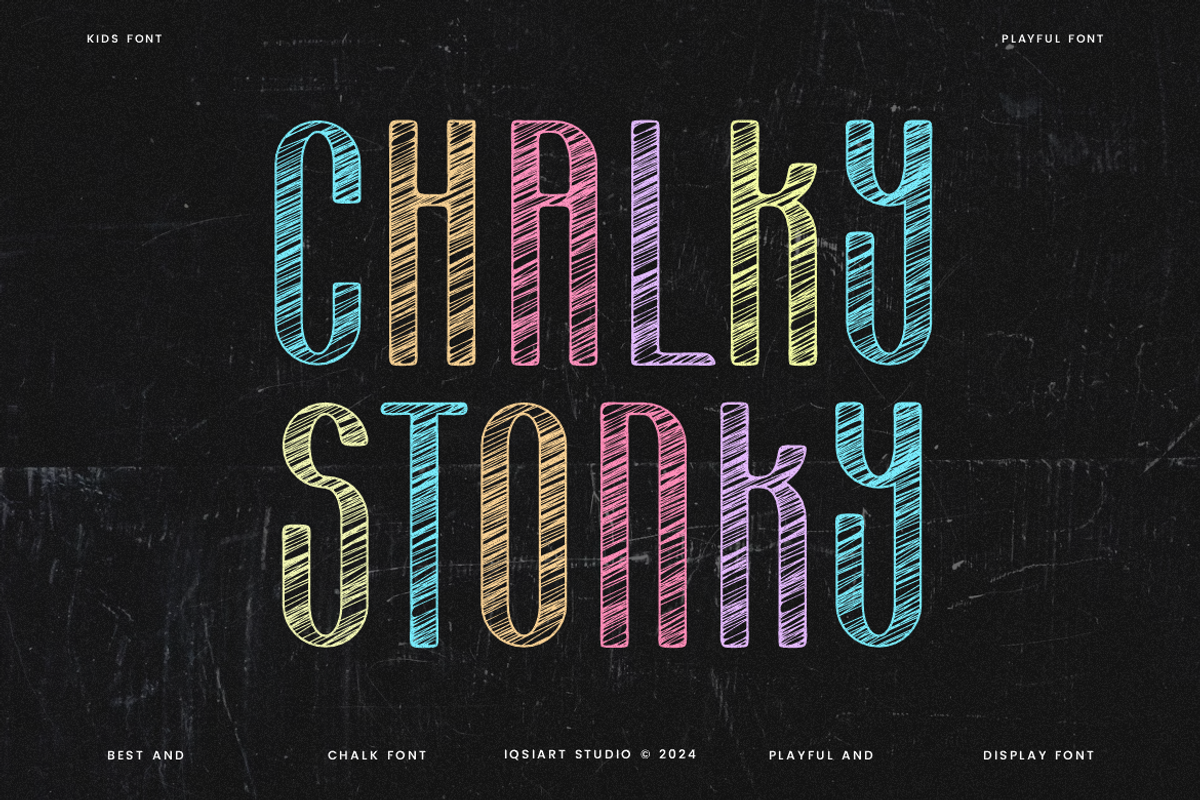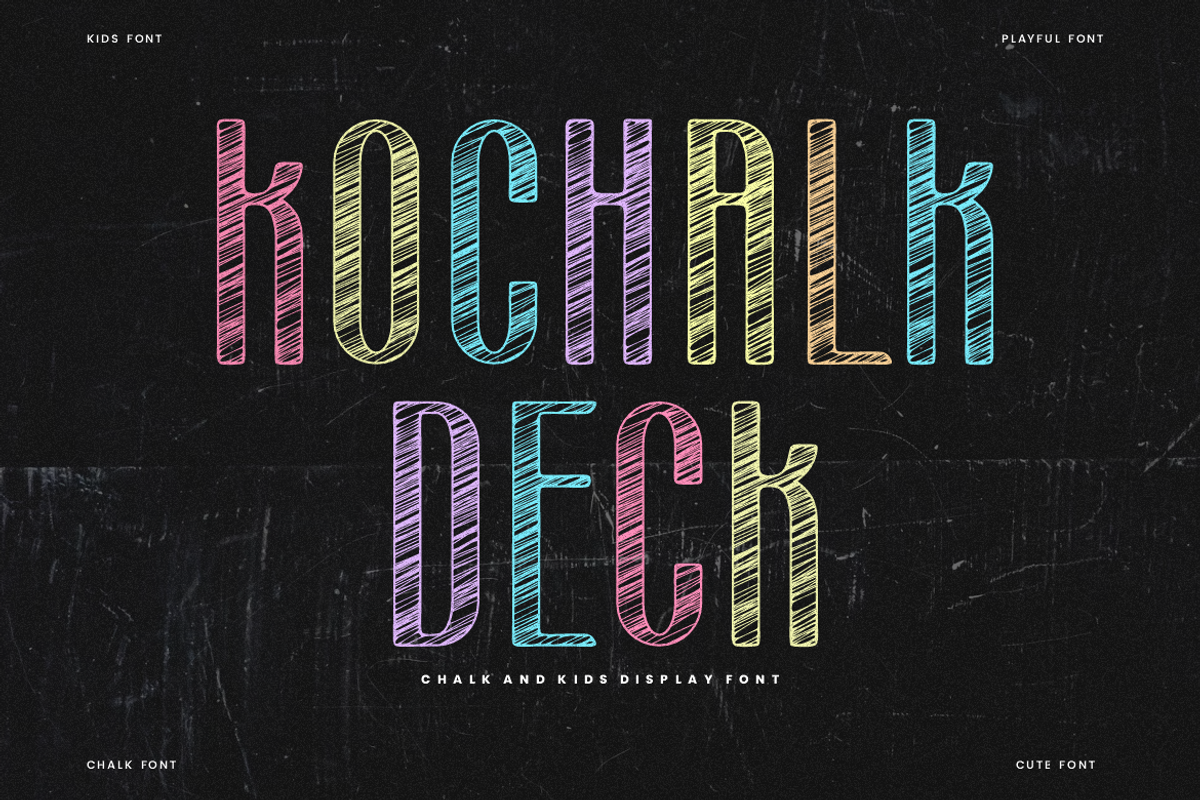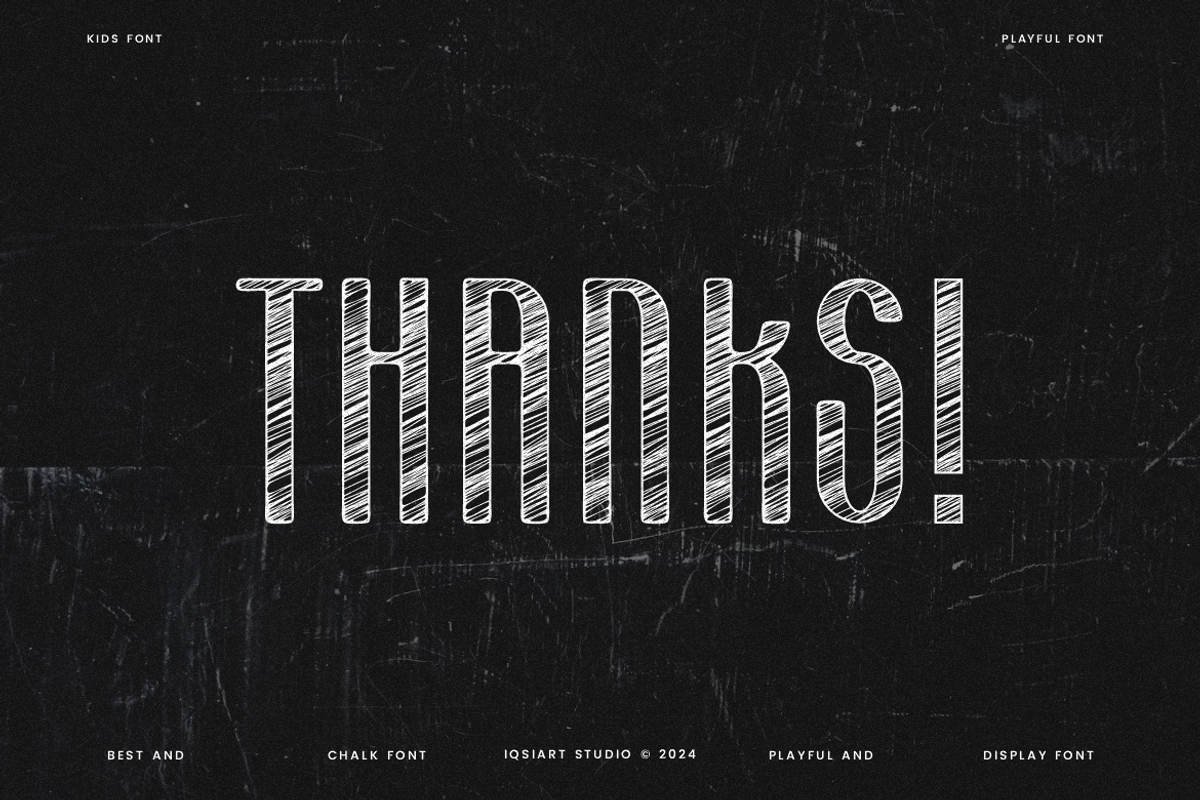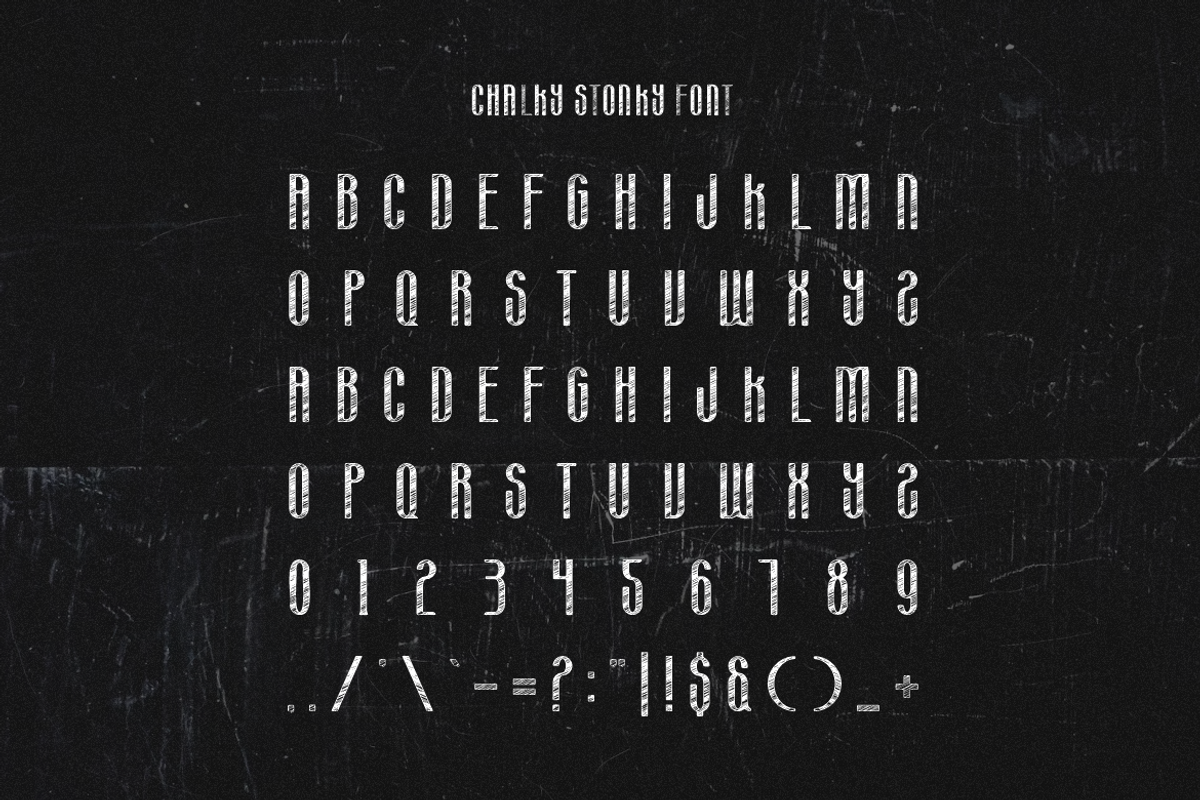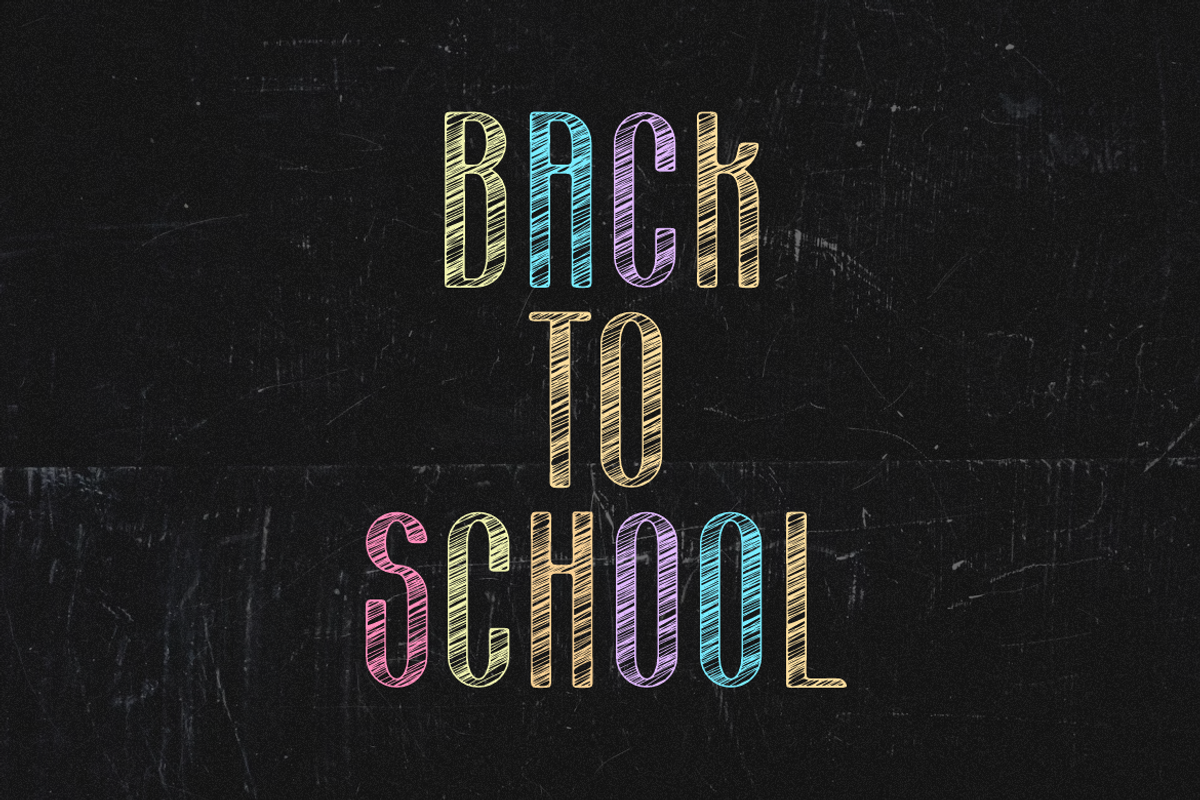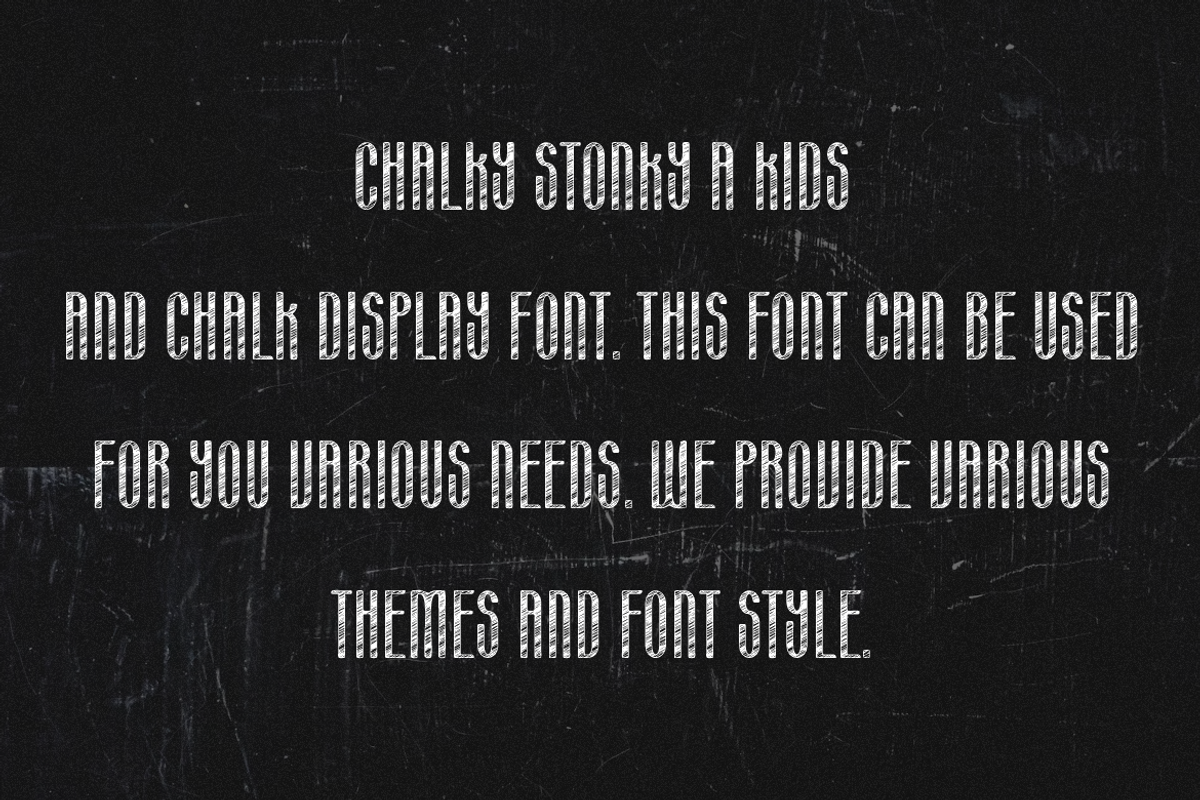
Chalky Stonky - Chalk & School Font
Chalky Stonky Font is a best and authentic display font. This font can be used for your various needs. We provide various themes and font styles. visit our profile to get a wide variety of themes and different font styles you need.